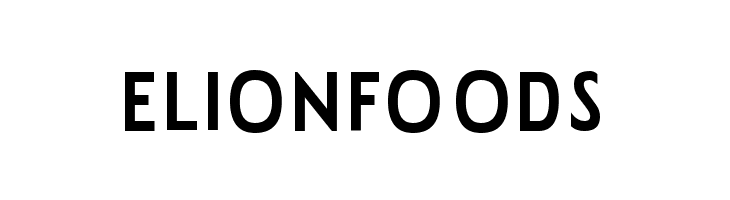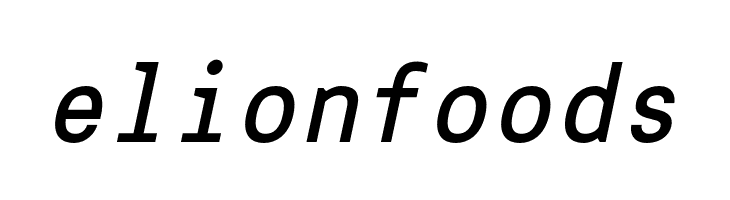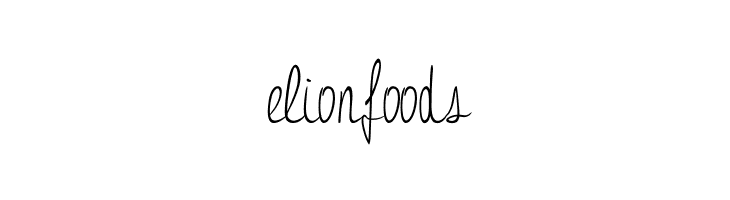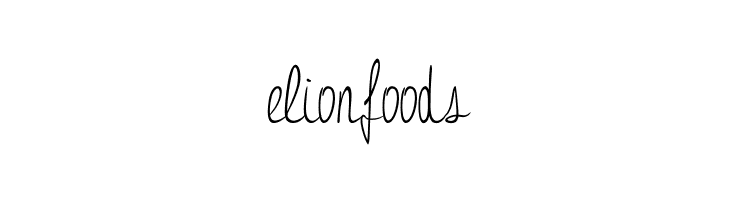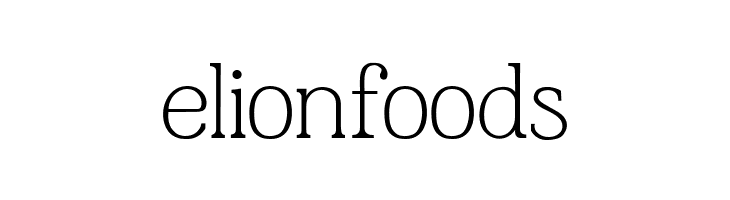
• Interval-BoldSlanted
A bold, slanted font with a modern and dynamic style.
• Interval-Book
A modern, geometric sans-serif font with excellent readability.
• Jakob
A modern, geometric sans-serif font with a clean and professional appearance.
• JakobSmallCaps
A modern, clean sans-serif font with uniform strokes and balanced spacing.
• JessFont
• JessyHeart
• JF Shill Light Book
( K. Bishop Martinez )
A modern, elegant font with clean lines and slight curvature.
• Josefa Rounded Reduced Book
A modern, rounded typeface with a friendly and approachable design.
• Josefa Rounded Reduced Book
A modern, rounded typeface with excellent readability and a friendly appearance.
• Josefa Rounded Reduced Book Italic
A rounded, italic font with a modern and approachable style.